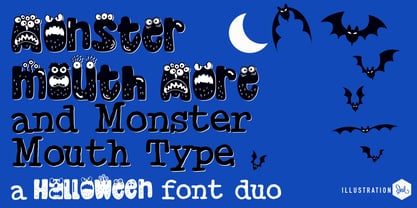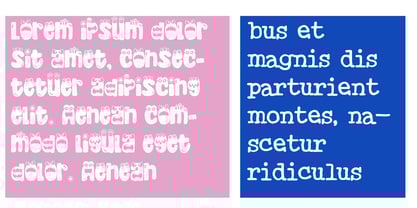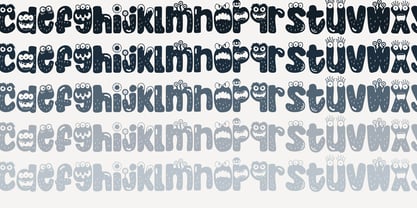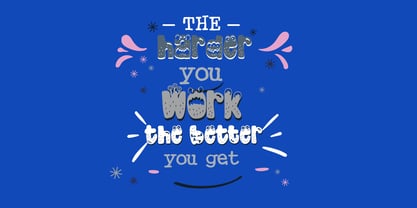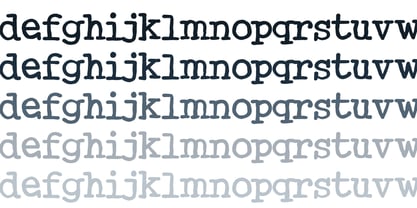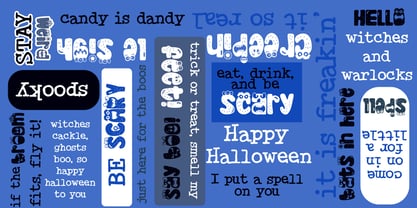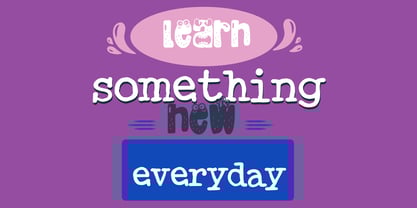
ZP Monster Mouth
by Illustration Ink
The ZP Monster Mouth Font Family was designed by Illustration Ink and published by Illustration Ink. ZP Monster Mouth contains 10 styles and family package options.
This hand-crafted font duo combines a whimsical, chunky, hand-crafted font with monster mouths and a coordinated hand-crafted, typewriter-like font.
Handcrafted fonts can be either formal or informal, and they can be used for a variety of purposes. Some of the characteristics of handwritten fonts include:
The letters are not perfectly uniform in size or shape.
There may be slight variations in the spacing between letters and words.
The font may have a "wiggly" or "squiggly" appearance.
The font may be difficult to read at small sizes.
Handwritten fonts can be a great way to add a casual touch to your designs. They can also be used to create a sense of nostalgia or whimsy. However, it is important to choose a handwritten font that is appropriate for the project you are working on. A formal handwritten font may not be appropriate for a casual invitation, while an informal handwritten font may not be appropriate for a corporate document.